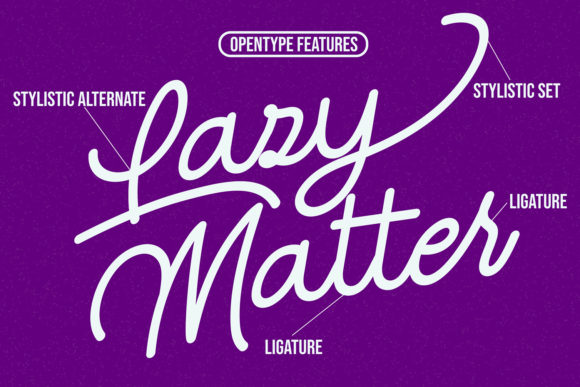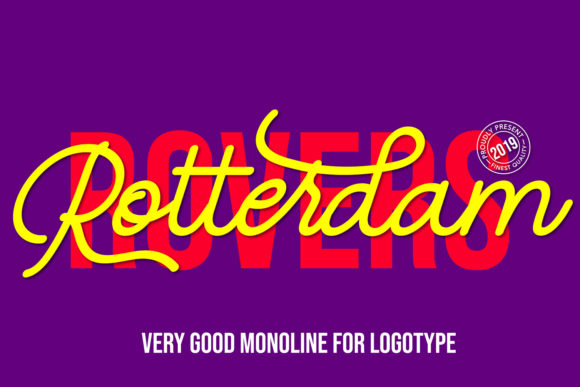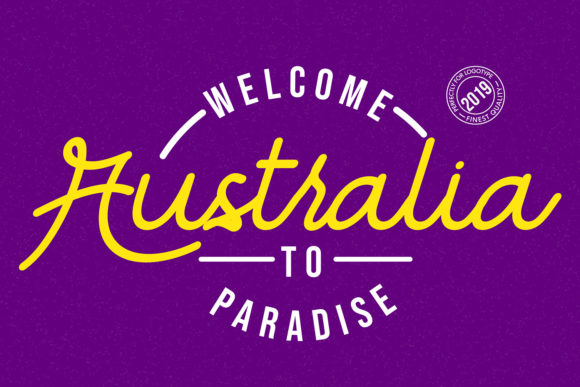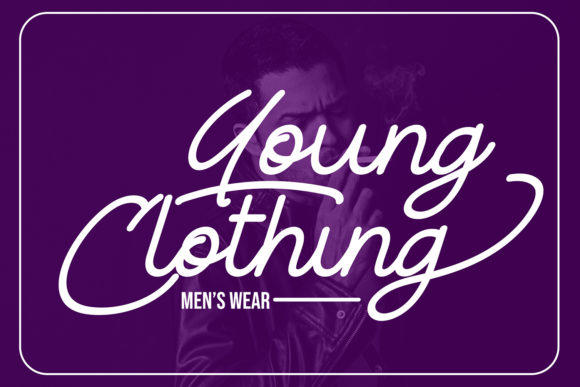
Introduction to River Young Font
River Young is a cool and fun handwritten font with a powerful vibe.
It will turn any design idea into a true standout .
River Young Font offers exceptional quality and versatility, making it a valuable addition to your design toolkit. Whether you’re creating for personal projects or commercial use, River Young Font delivers professional results.